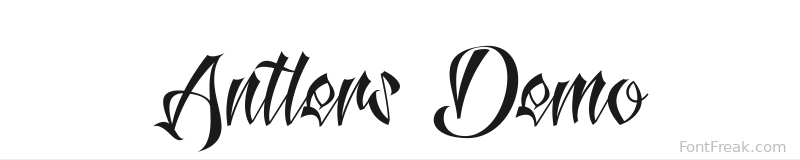
Antlers Demo
About Antlers Demo
Antlers Demo font, crafted by the talented Mans Greback, is a captivating decorative typeface that brings a unique flair to any design project. This font features elegant, flowing strokes with a mix of sharp and rounded edges, creating a visually striking contrast that draws the eye. The stroke weight varies throughout the font, adding an artistic touch that enhances its decorative appeal. With its thoughtful spacing and intricate details, Antlers Demo exudes a sense of creativity and personality, making it an excellent choice for various applications.
This font is particularly suited for wedding invitations, where its romantic style can beautifully complement the theme of love and celebration. It also works well for movie posters, adding a dramatic flair that captures attention and evokes emotion. Restaurant menus can benefit from the sophisticated touch of Antlers Demo, enticing diners with its artistic presentation. Additionally, it is perfect for branding projects aimed at small businesses looking to stand out, as it conveys a sense of uniqueness and character.
What sets the Antlers Demo font apart is its ability to combine elegance with creativity, making it a standout option in the world of decorative typefaces. Whether you’re designing for a special event or crafting a brand identity, the Antlers Demo font free download provides the perfect balance of style and functionality, ensuring your work leaves a lasting impression.